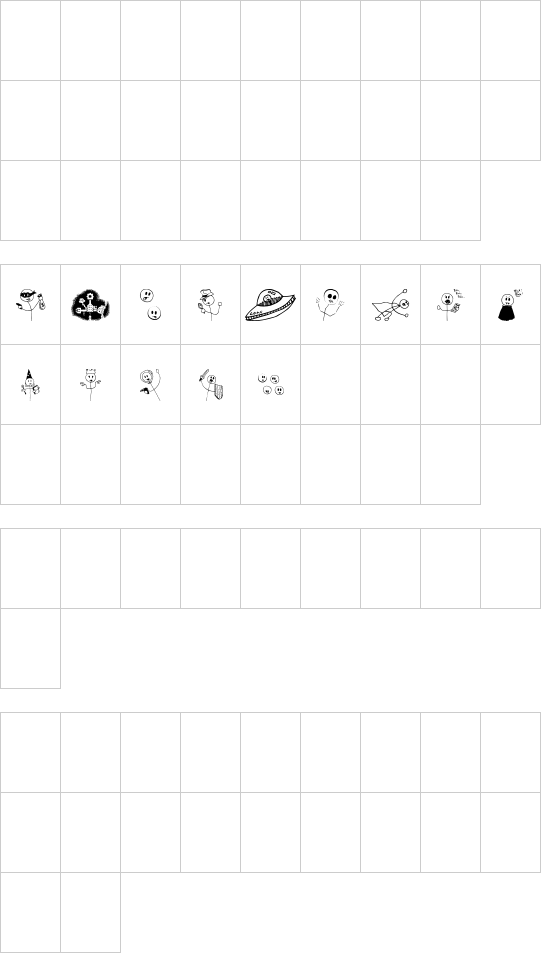
Risus Lcb Dingbats
Risus Lcb Dingbats replaces the alphabet with a collection of fun illustrated symbols and icons, so each key delivers a small picture rather than a letter. The set works like a grab-bag of spot art, ready to drop quirky glyphs wherever a layout needs a visual accent.